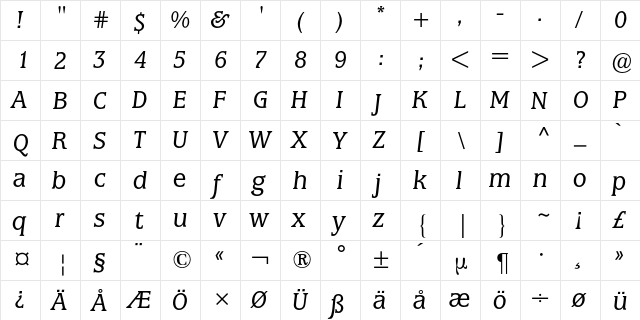
Marbrook BQ Regular
Marbrook BQ Regular Font Preview
Marbrook BQ Regular
Marbrook BQ Regular Font Details
Design Context for Marbrook BQ Typeface
Marbrook BQ is a composed and adaptable typeface that performs quietly and consistently across a wide range of design contexts.
Pro Tip: Use Marbrook BQ in both headline and body roles to test its range before committing to a single application.